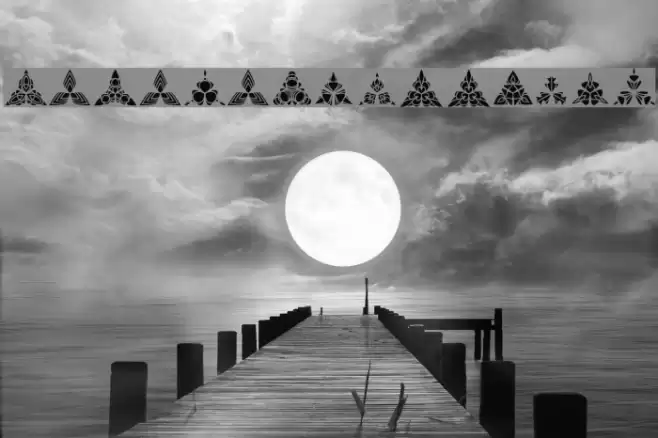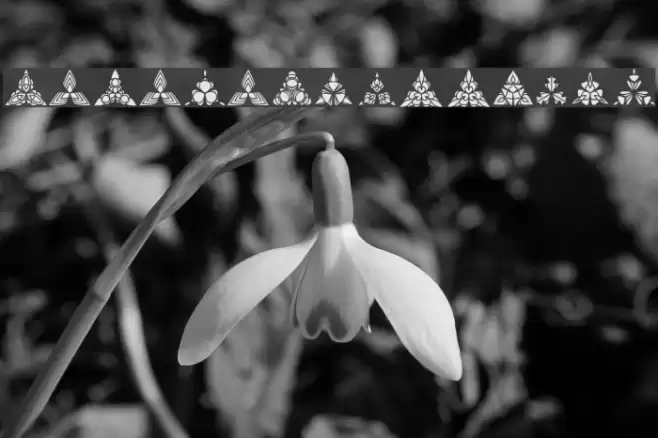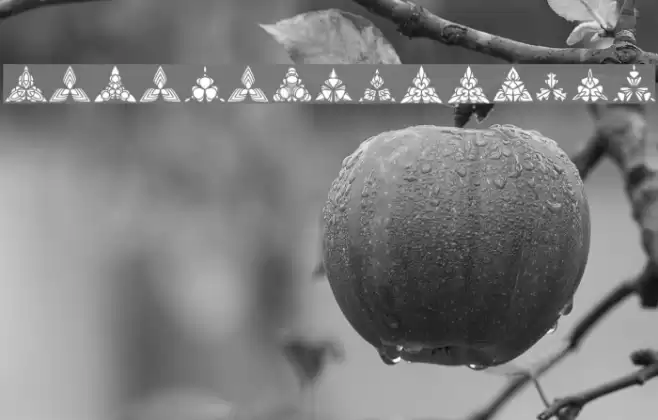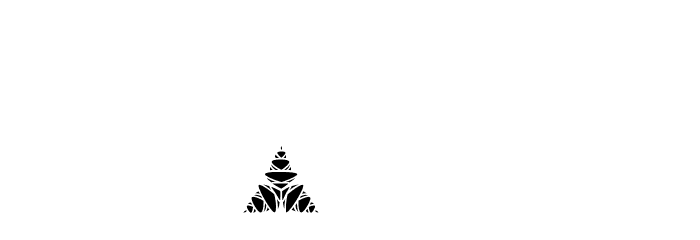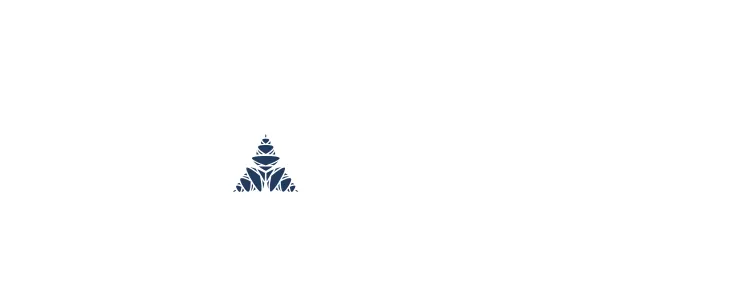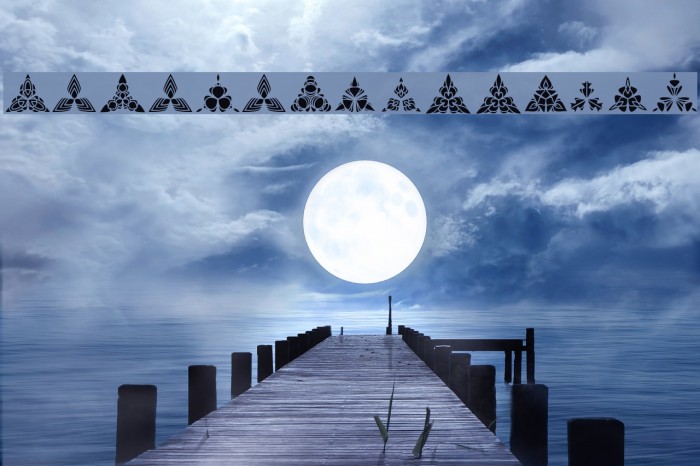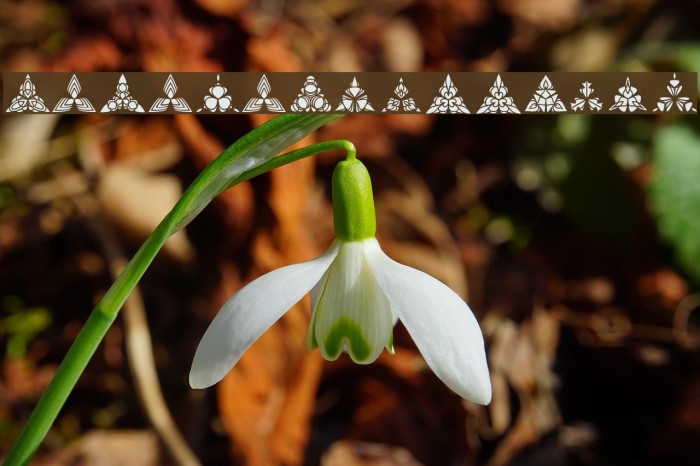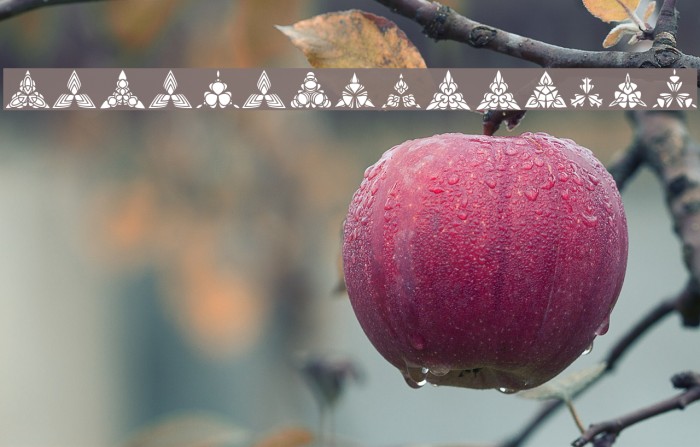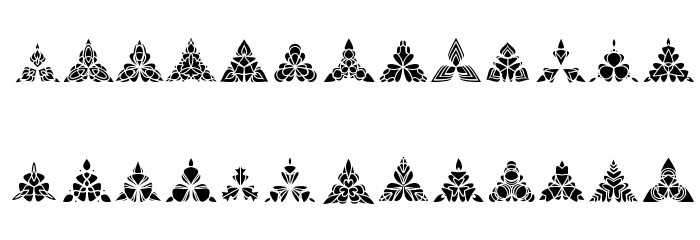
BIGILIW.Patterns Font
BIGILIW.Patterns Description
A highly decorative and ornamental font where each character is composed of intricate, symmetrical patterns forming triangular motifs. The glyphs are bold, filled with detailed flourishes and organic shapes, making each letter and symbol visually complex and unique.
Ornamental font with intricate, triangular patterned glyphs from Dingbats fonts.
- Proposed Projects: Branding for luxury products, decorative headings, event invitations, artistic posters, packaging design.
- Overall Style: Decorative, Ornamental, Artistic
- Use Case: Logos, Headlines, Posters, Invitations